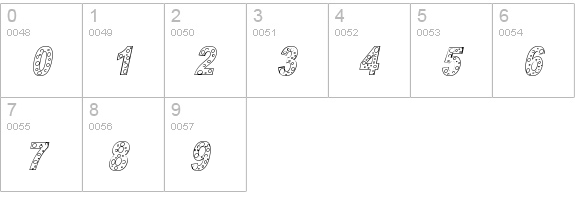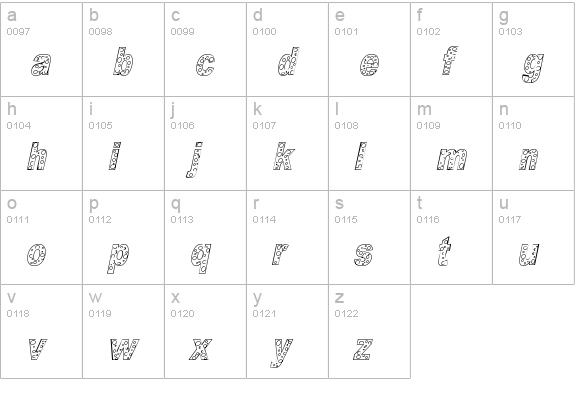
HOLE 3 cursive outline Font Details
HOLE 3 cursive outline font is a stunning and elegant typeface that will add a touch of sophistication to any design project. Its intricate cursive design gives it a unique and stylish look, making it perfect for invitations, logos, branding, and more. The delicate outlines of the letters create a beautiful and eye-catching effect that will surely impress your audience. What's even better is that HOLE 3 cursive outline font is available for free download at FontsMarket.com. This means you can easily access this gorgeous font without any cost, making it a valuable addition to your font collection. Whether you're a designer looking for a new creative tool or simply someone who appreciates beautiful typography, HOLE 3 cursive outline font is a must-have. Download it today and elevate your designs with this exquisite typeface.